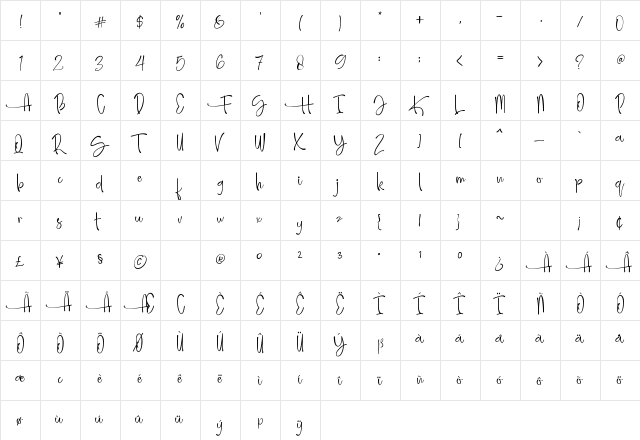
Amellia Ink Regular
| Foundry | HansCo |
| Designer | Burhan Afif |
Design Context for Amellia Ink Typeface
Amellia Ink is a composed and adaptable typeface that performs quietly and consistently across a wide range of design contexts.